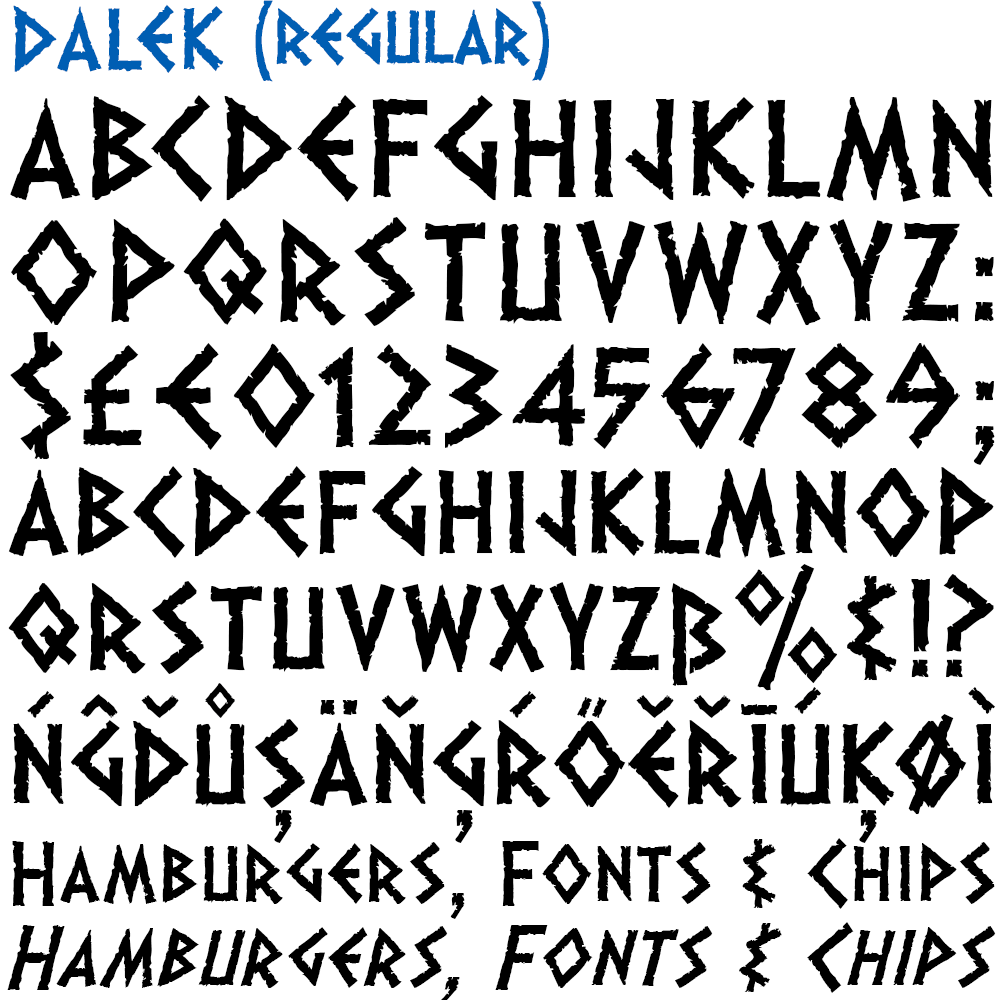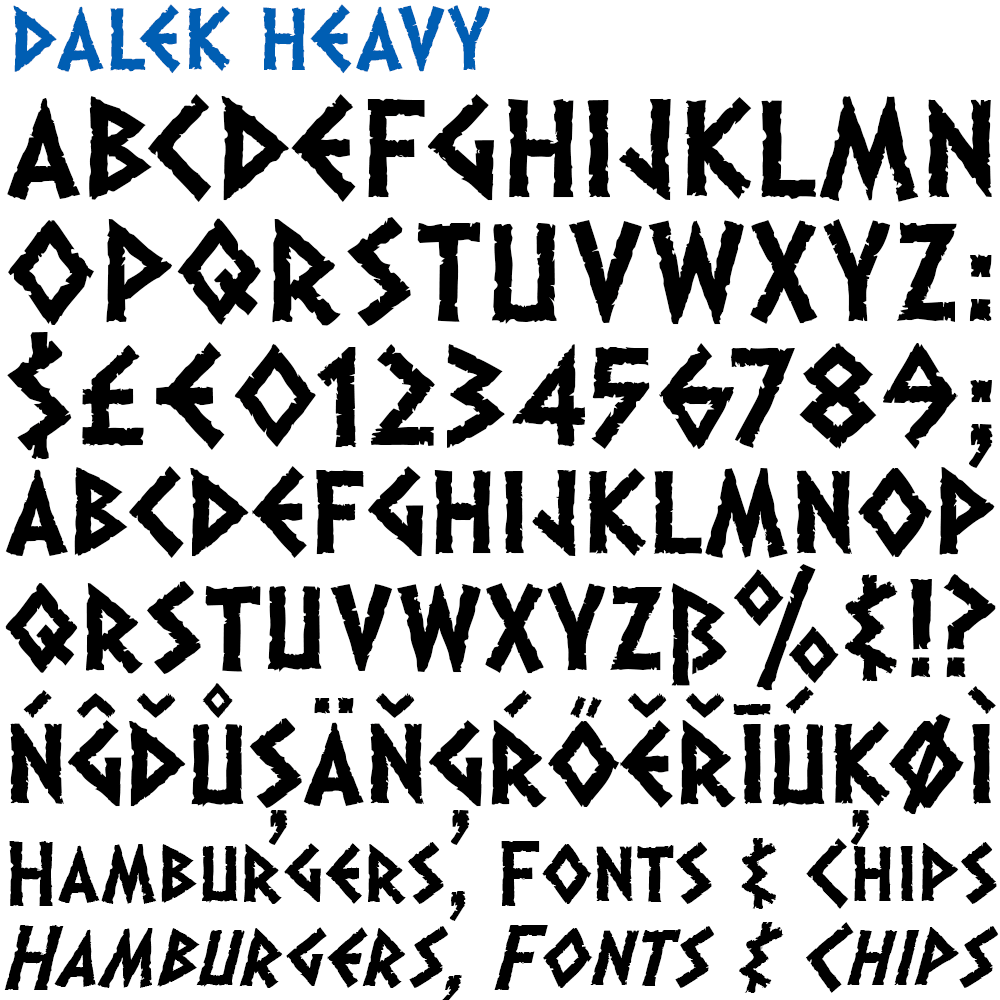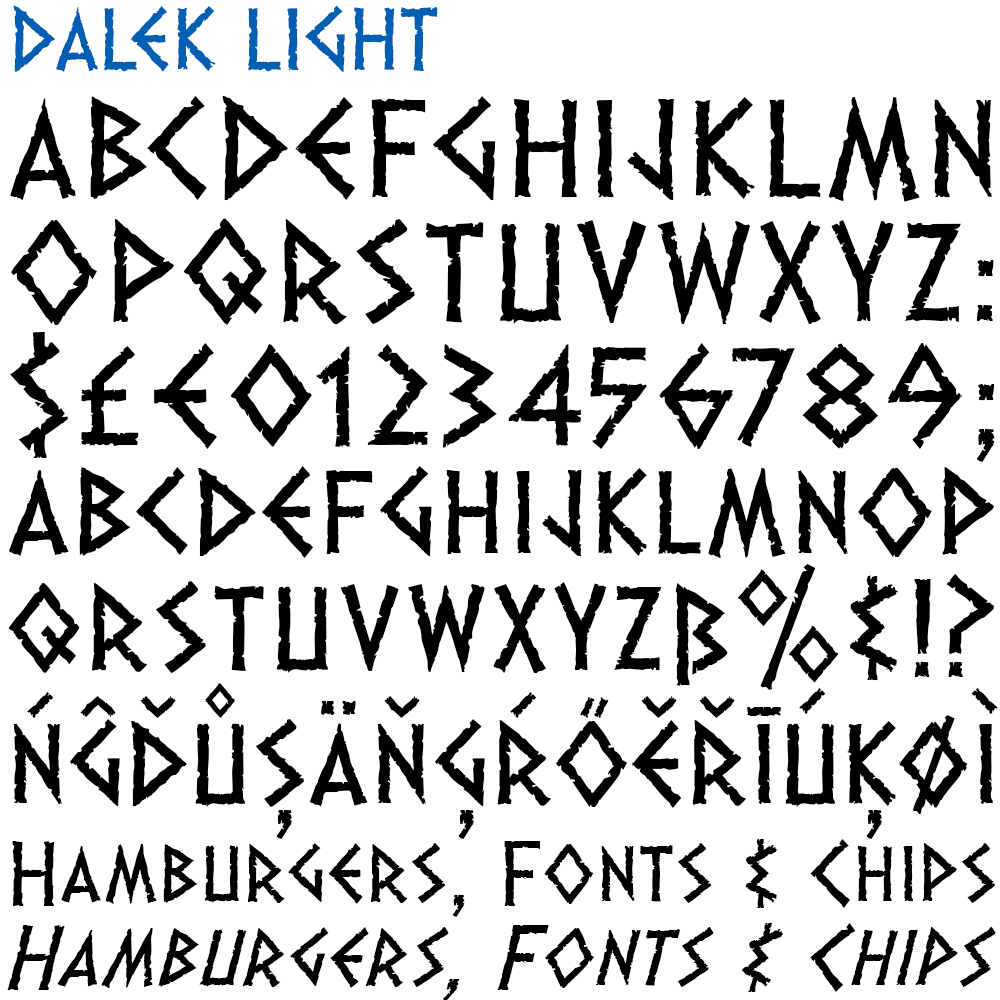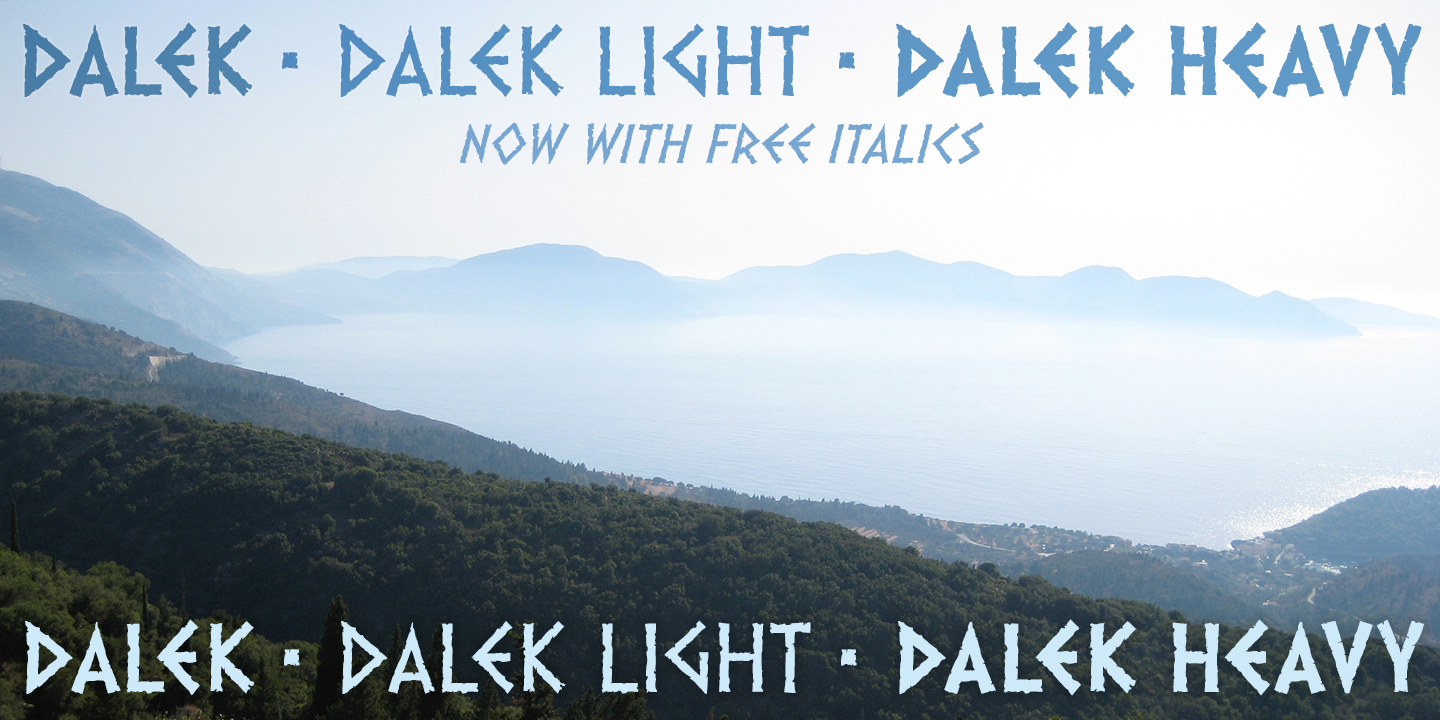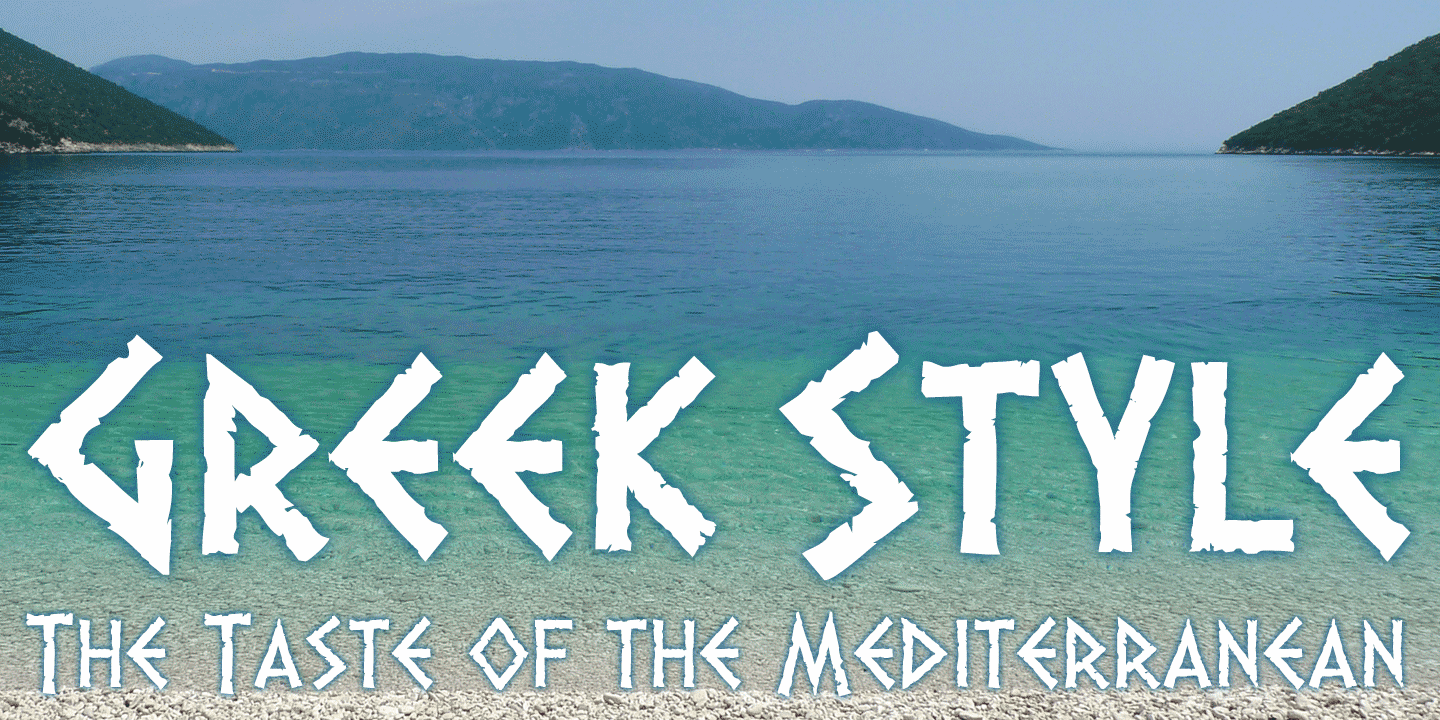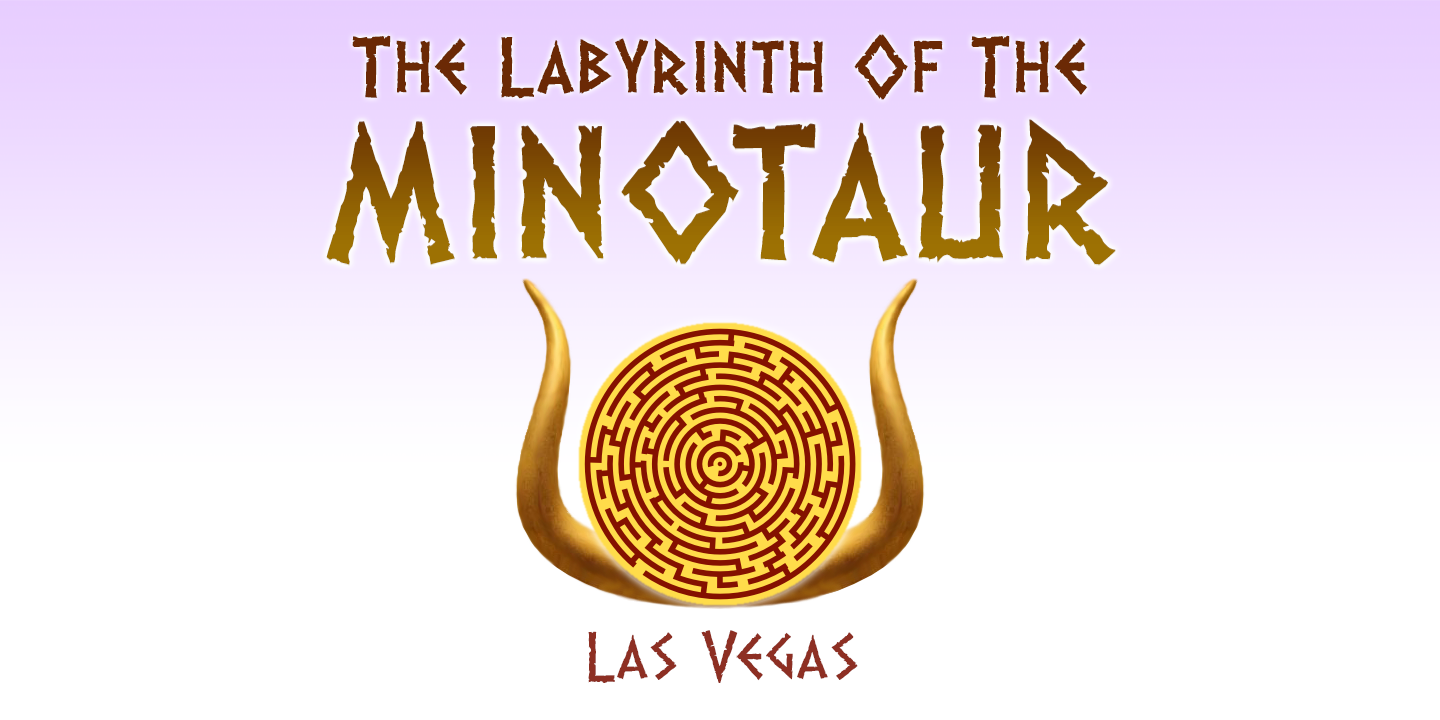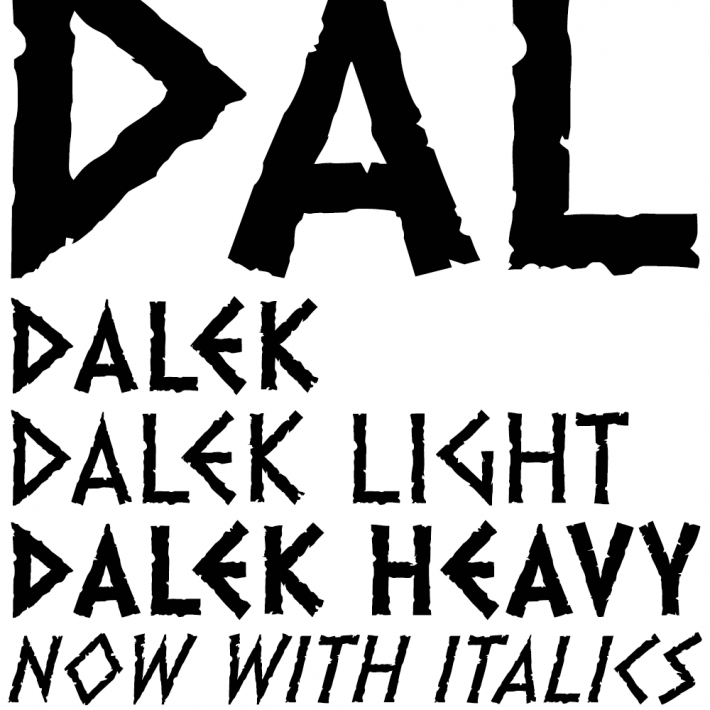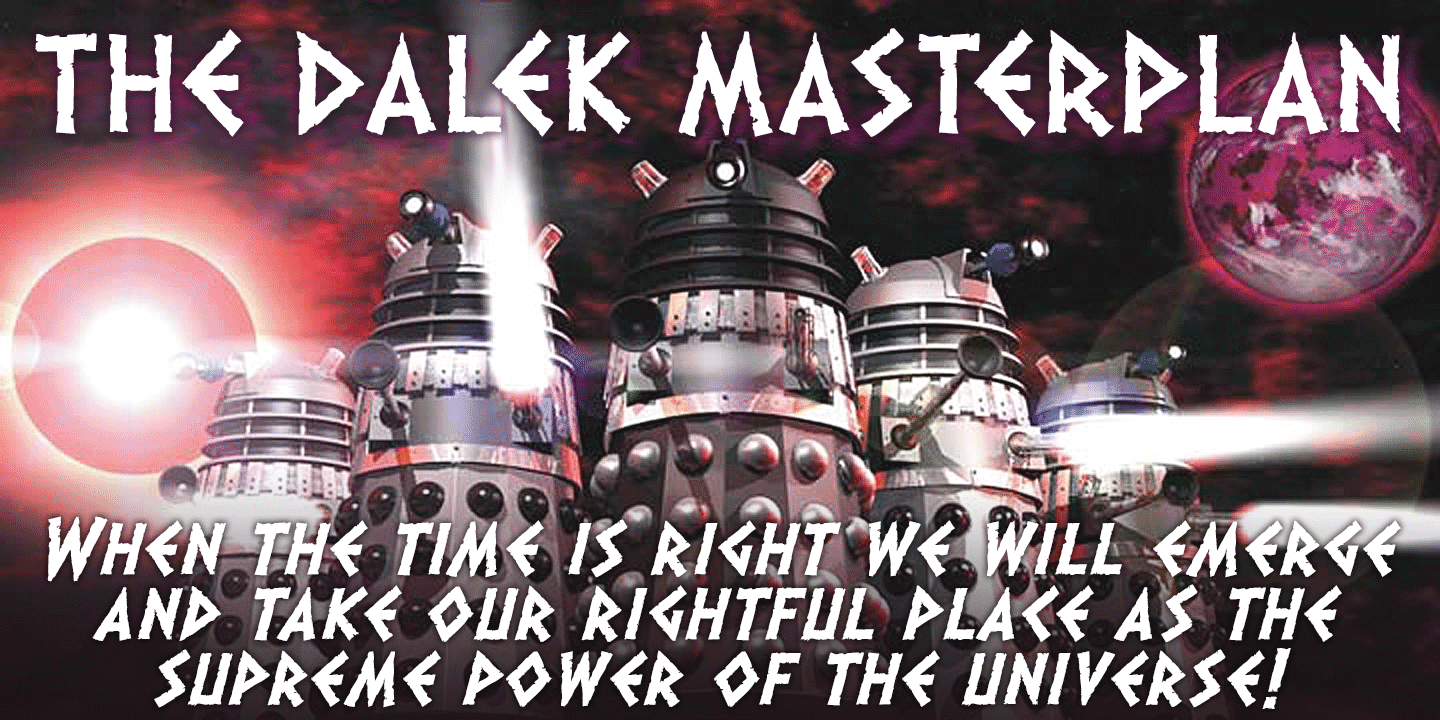
Dalek
Dalek is a distressed, small caps typeface based on the lettering used in the Dalek Book of 1964 and in the Daleks strip in TV21 comic. The fonts have overtones of Greek, Phoenician and Runic alphabets.
Version 3.0 Dalek fonts include a full complement of Latin Extended-A characters and numerous subtle outline improvements. In addition to the original regular font, Heavy and Light weights are available, and each weight is now supplied with a new Italic (optically corrected oblique).